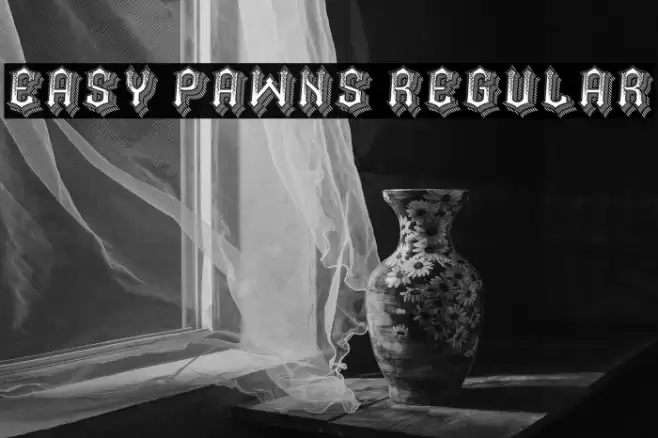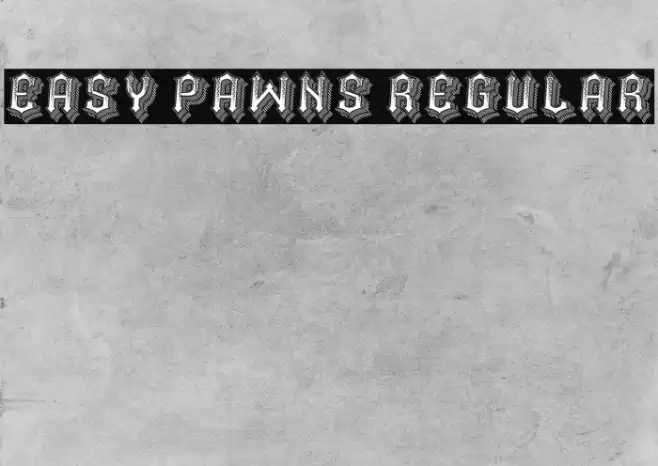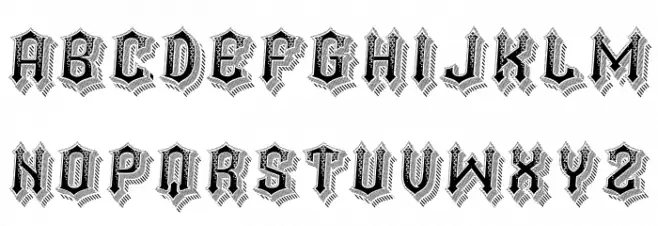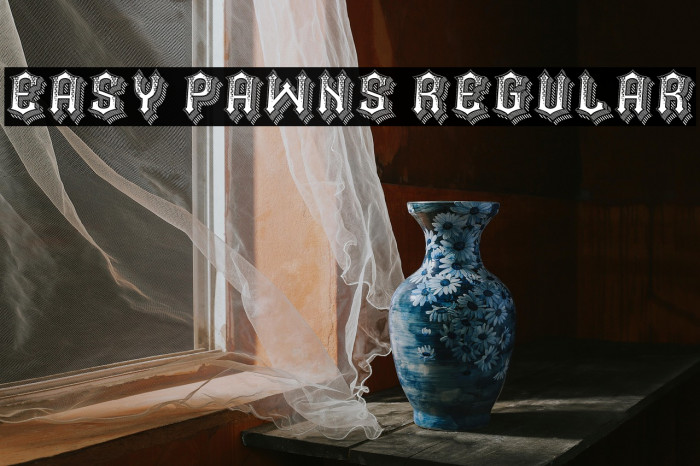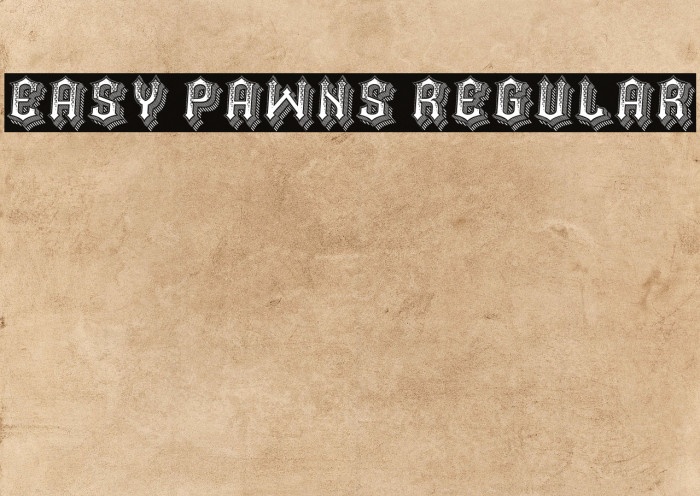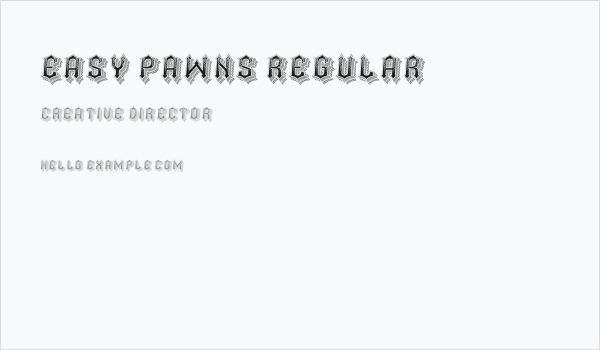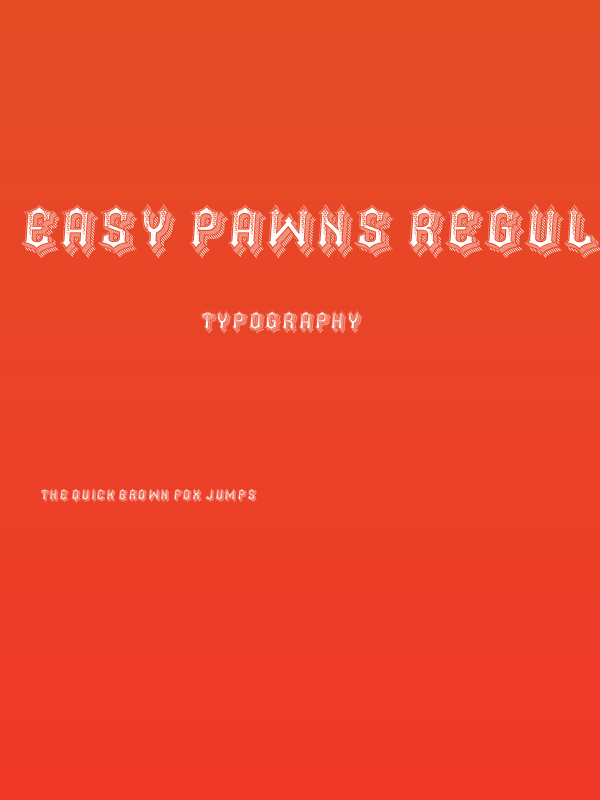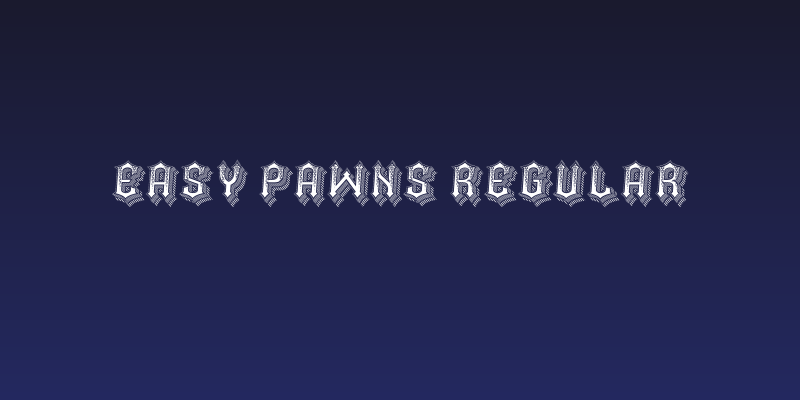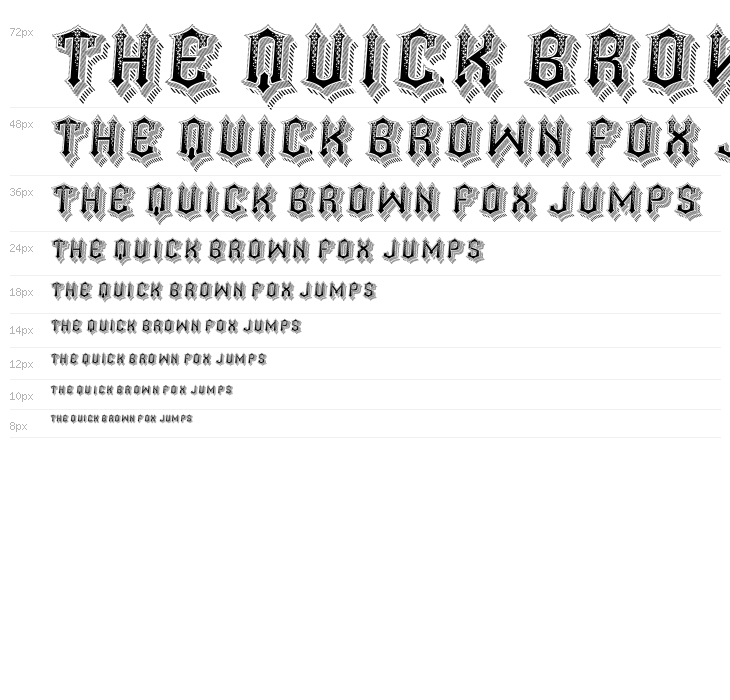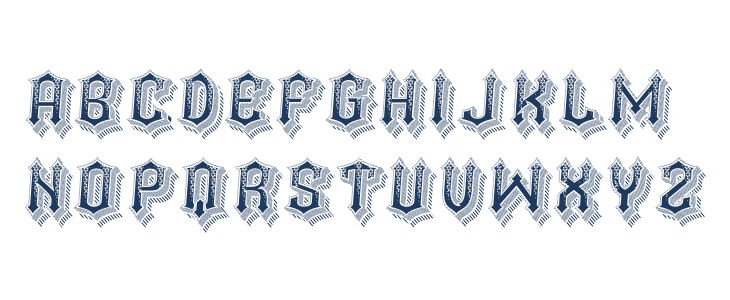
Easy Pawns Regular Font
Easy Pawns Regular Description
This font exhibits a bold and intricate design with a distinct blackletter style. Each character is adorned with decorative elements, including sharp serifs and elaborate embellishments, giving it a historic and gothic appearance. The strokes are thick and consistent, providing a strong visual impact. The font maintains a uniform structure across both uppercase and lowercase letters, ensuring readability while preserving its ornate aesthetic. The numbers and special characters are equally detailed, matching the overall theme. This font is ideal for projects that require a touch of medieval or vintage flair.
An ornate blackletter font with bold, decorative elements and a gothic style from Uncategorized fonts.
- Proposed Projects: Ideal for vintage-themed posters, book covers, branding for historical events, or gothic-style invitations.
- Overall Style: Vintage
- Use Case: Logos, Headlines, Decorative text